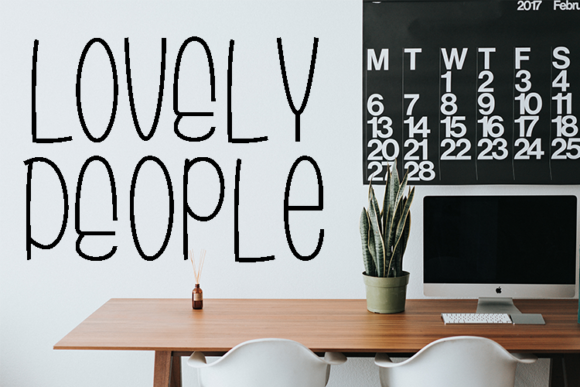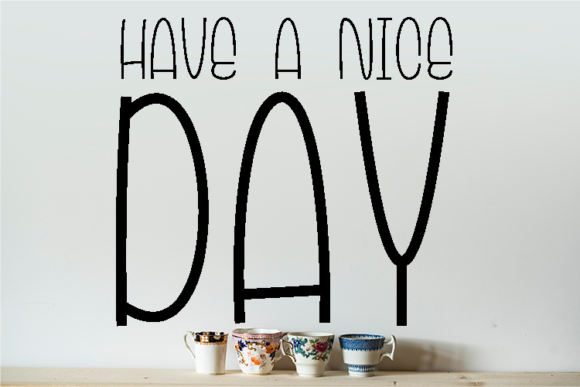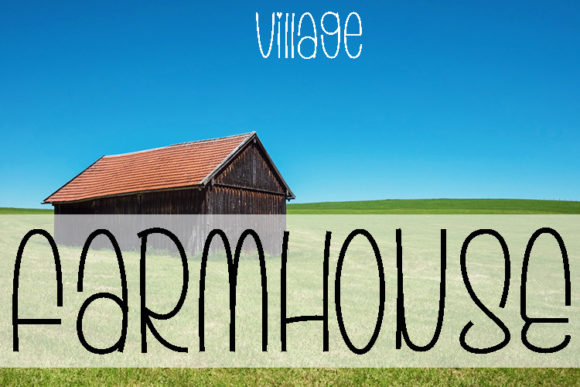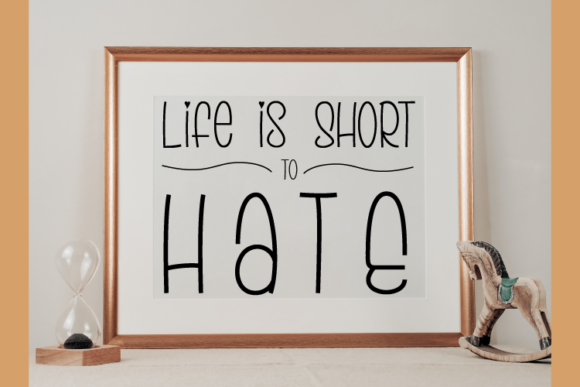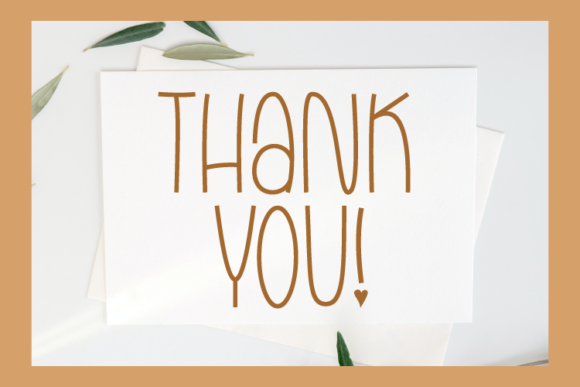
Discover the Joy of Creativity with Babyla Font
Have you ever been stuck in front of a blank canvas, staring at your computer screen, desperately searching for the perfect font to bring your creative idea to life? We’ve all been there. But what if I told you that there’s a font that can instantly transport you to a world of whimsy and wonder? A font that’s so cute, so playful, and so full of life that it’ll make your designs shine like never before.
Meet Babyla Font, a delightful display font that’s specifically designed to add a touch of magic to your creations. Whether you’re working on a cartoon, a children’s game, or simply a project that needs a bit of extra charm, Babyla Font is the perfect choice. Its thin, elegant lines and adorable characters will make your designs stand out from the crowd, and its versatility will ensure that it fits perfectly into any project.
Babyla Font Key Features
- Font Style: Script, Handwritten
- Unique Characteristics: Distinctive, childlike feel; ideal for creating a playful, whimsical atmosphere
Babyla Font Review
As a designer, I was excited to dive into the Babyla Font and see what it had to offer. Here’s my honest review:
- ✨ The font’s playful, whimsical feel is perfect for creating a fun and approachable brand identity.
- ✨ The font’s high x-height and open counters make it easy to read, even at small font sizes.
- ✨ The font’s extensive character set and language support make it a great choice for international projects.
- ⚠️ The font’s bold weights can feel a bit too condensed, making it difficult to read in large blocks of text.
- ⚠️ The font’s italic styles can feel a bit too ornate, which may not be suitable for all projects.
- ⚠️ The font’s limited vertical metrics can make it challenging to use in certain layout scenarios.
Overall, I think the Babyla Font is a solid choice for projects that require a playful, approachable feel. However, it may not be the best choice for projects that require a more formal or technical tone. With a bit of careful consideration and planning, this font can be a great addition to any designer’s toolkit.
Babyla Font is commonly used for:
- Children’s books and educational materials.
- Playful and whimsical designs.
- Titles and headings for creative projects.